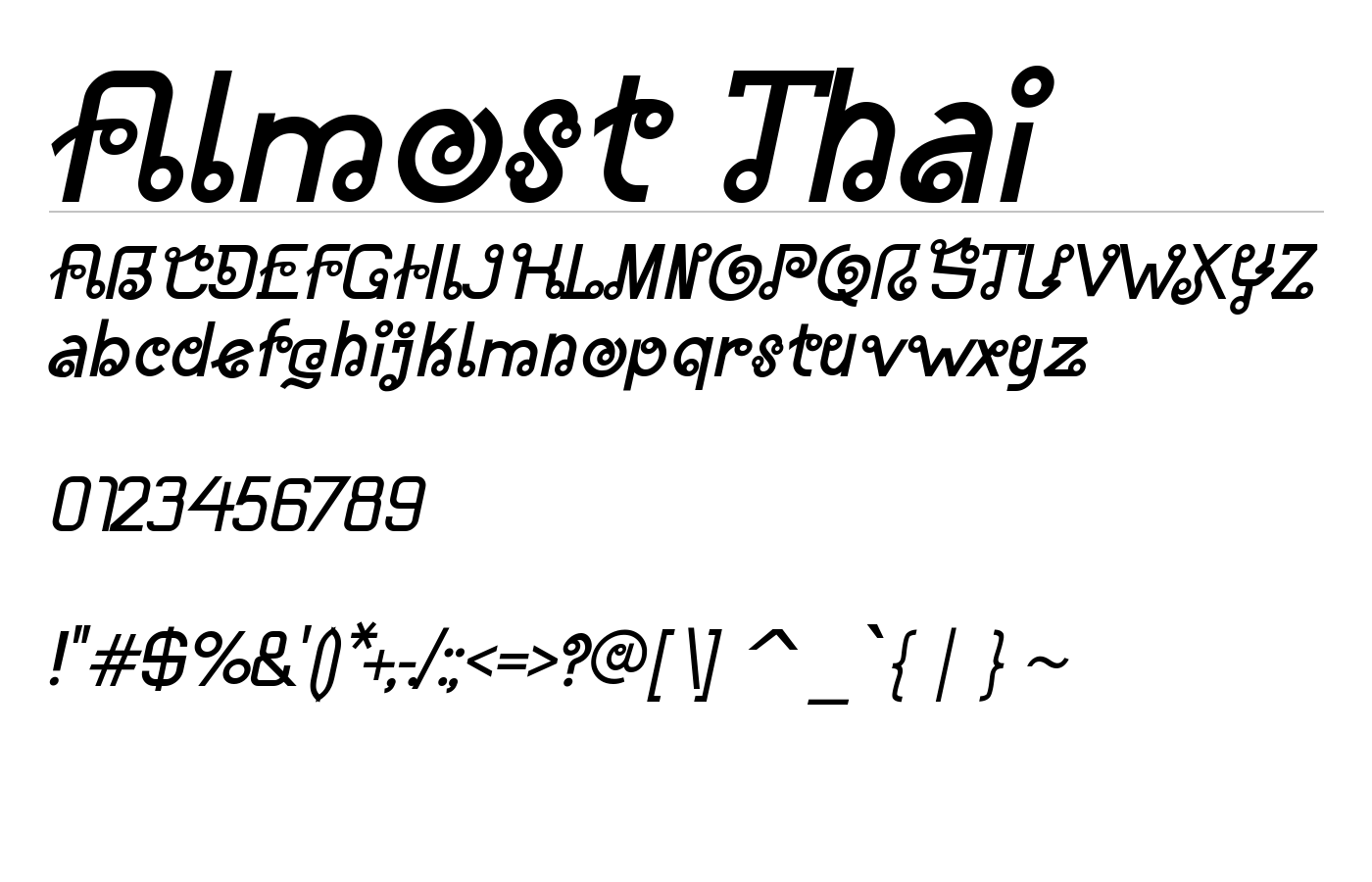
Almost Thai is a playful, decorative sans serif font with a unique blend of geometric and calligraphic strokes, featuring whimsical curls and loops reminiscent of Thai script. Its light to regular weight and slightly condensed forms create an energetic and lively vibe, ideal for eye-catching headlines, branding, and creative projects that seek a fun yet sophisticated personality. This font works best in display uses where its distinctive character can shine, giving designs a fresh, artistic flair.
Almost Thai Font
About Almost Thai Font
| Font family | Almost Thai Font |